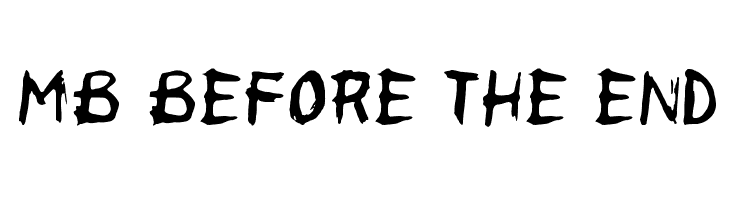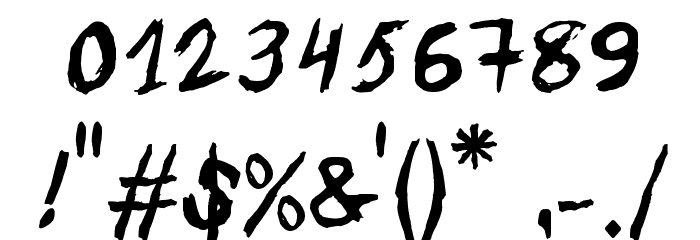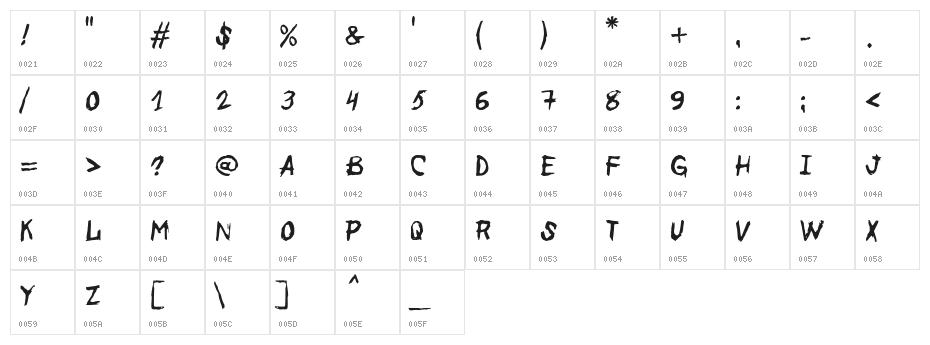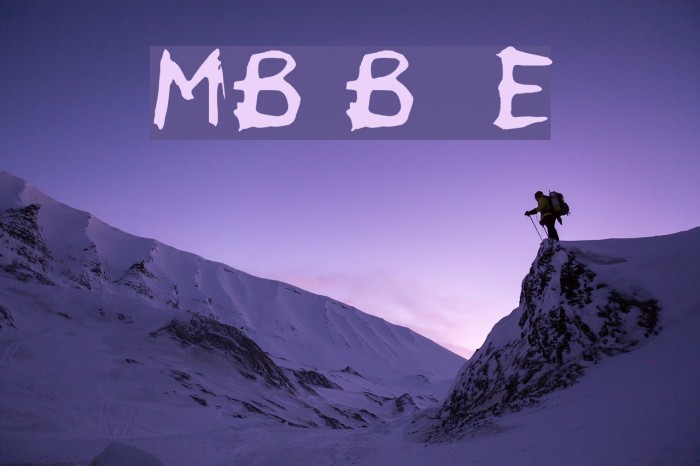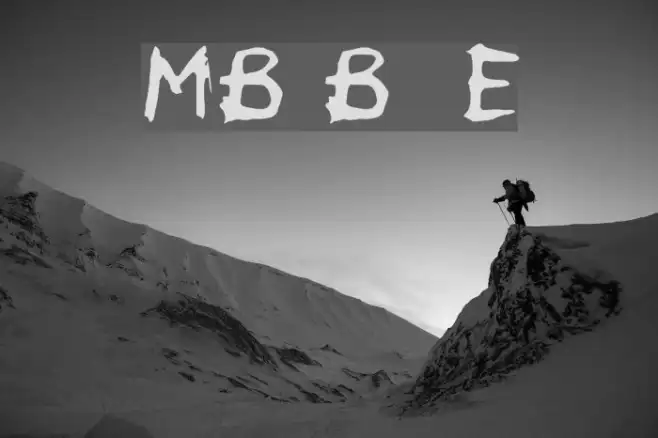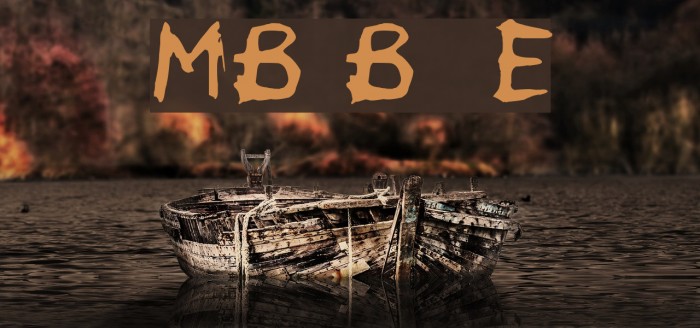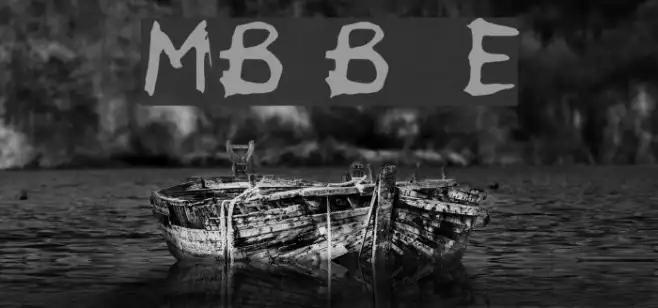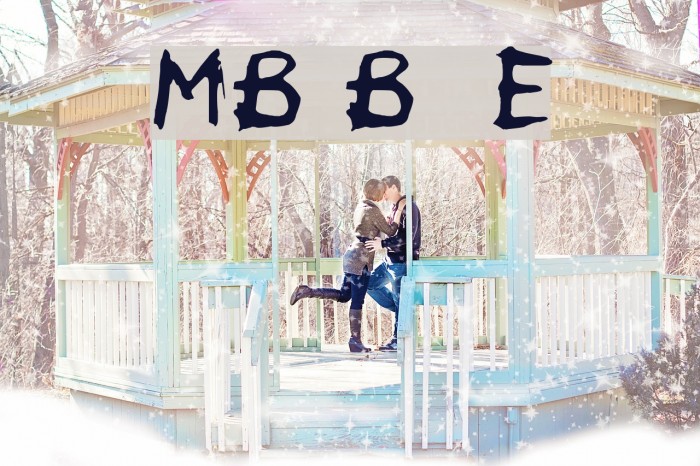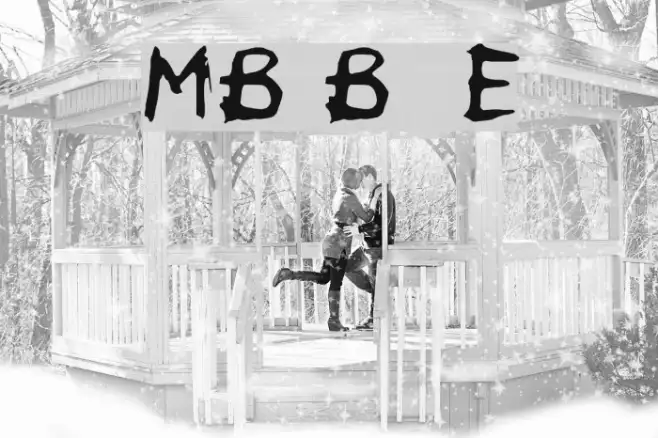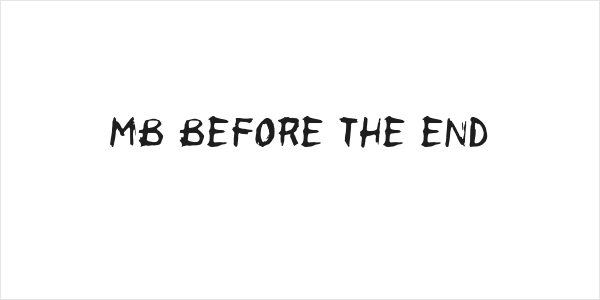
MB Before the End Font
MB Before the End Description
This font exudes a bold and dynamic presence with its brush-like strokes and slightly irregular edges, giving it a hand-painted appearance. The uppercase and lowercase letters maintain a consistent style, with a noticeable slant that adds a sense of movement and energy. The numerals and special characters follow the same aesthetic, ensuring uniformity across all elements. The overall design is expressive and artistic, making it ideal for projects that require a touch of creativity and flair.
| Proposed Projects | Perfect for artistic projects, posters, album covers, and branding that requires a creative and energetic touch. |